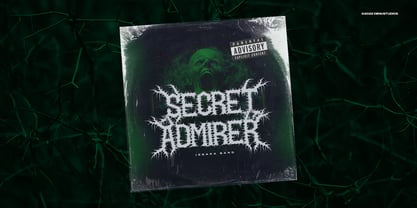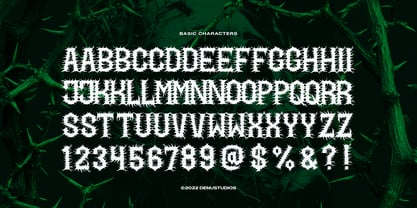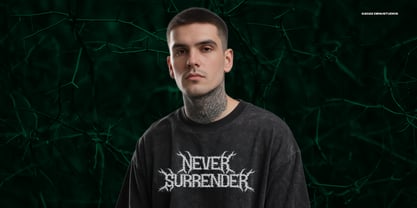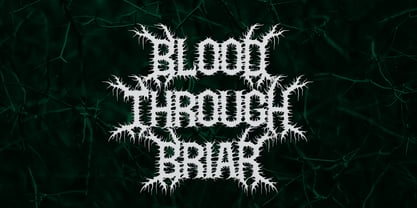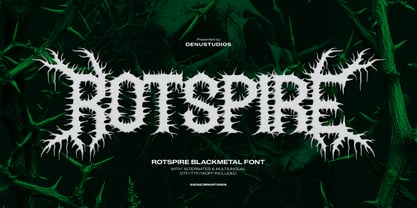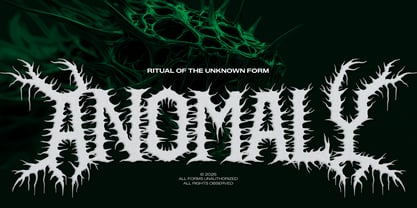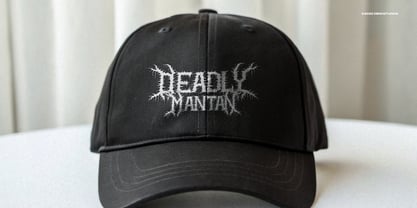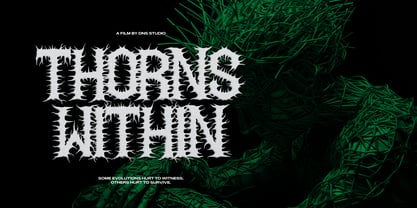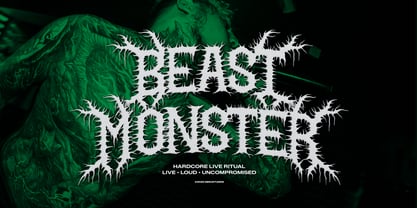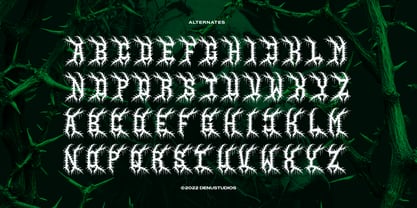
Rotspire
Die Schriftfamilie Rotspire wurde von Dede Nugraha entworfen und von Denustudio veröffentlicht. Rotspire enthält 1 Stile. Mehr über diese Familie
Rotspire | Black Metal Font, from Denustudios, suitable for any projects such as: logos, branding projects, homeware designs, product packaging, mugs, quotes, posters, shopping bags, t-shirts, book covers, name card, invitation cards, greeting cards, label, photography, watermark, special events, and all your other lovely projects that need Black Metal a taste.